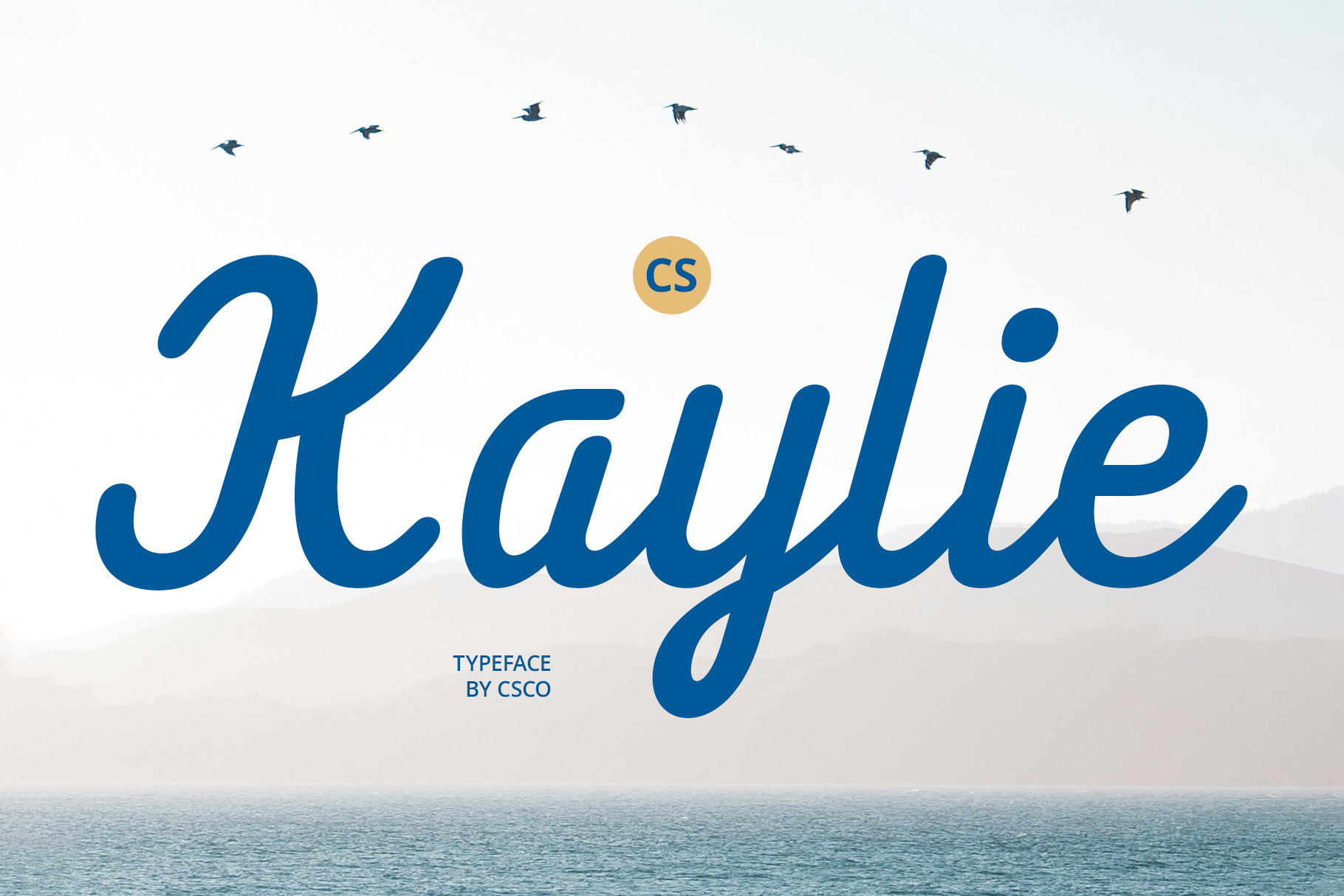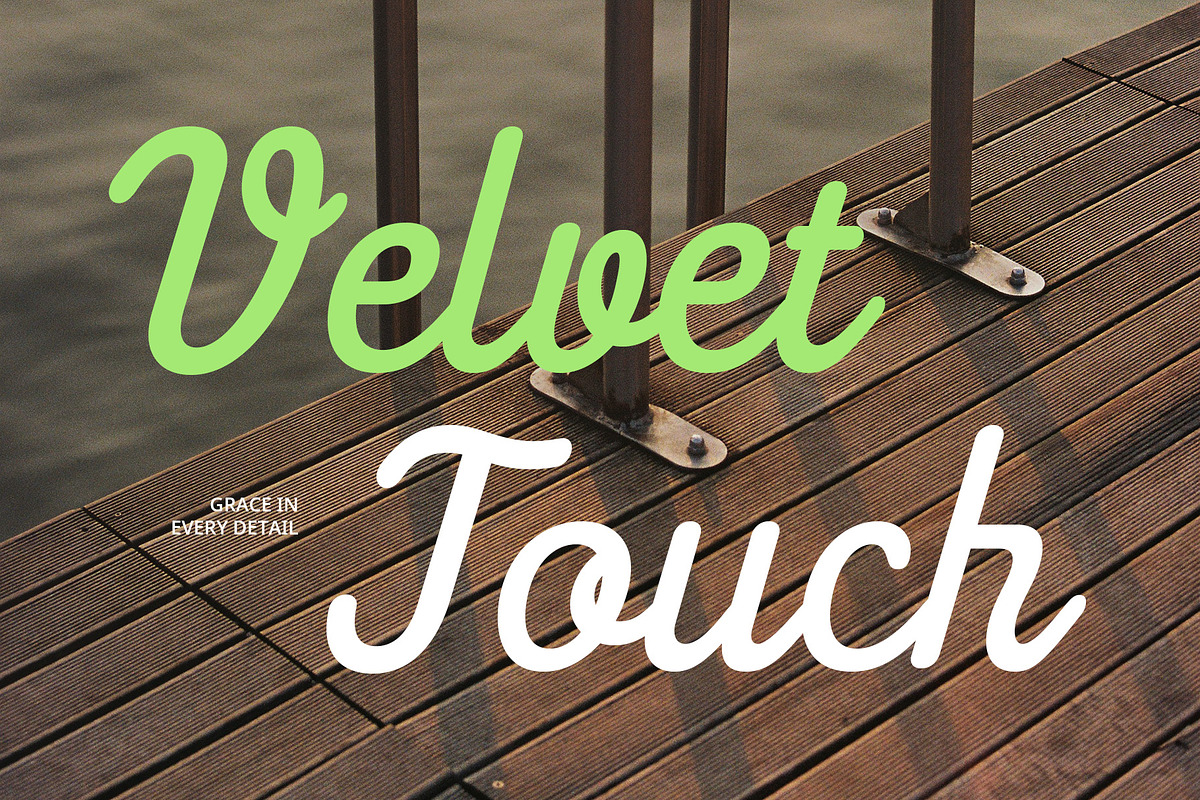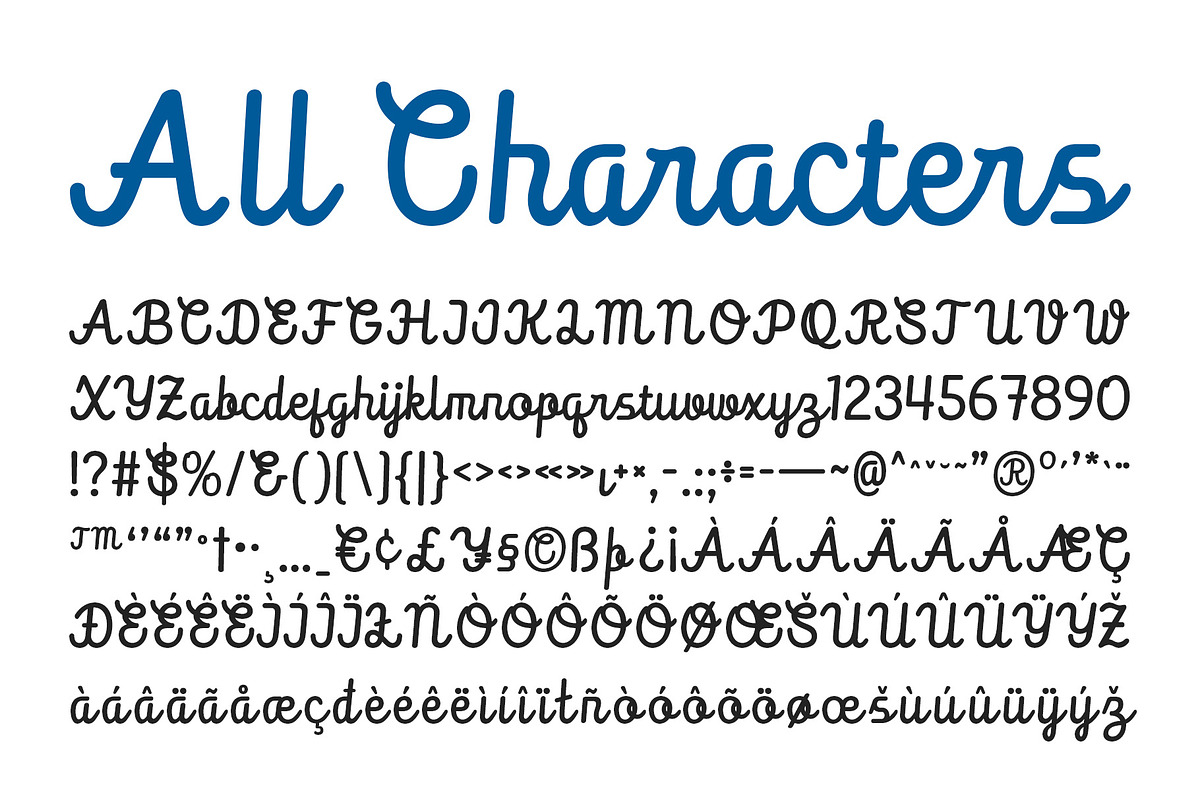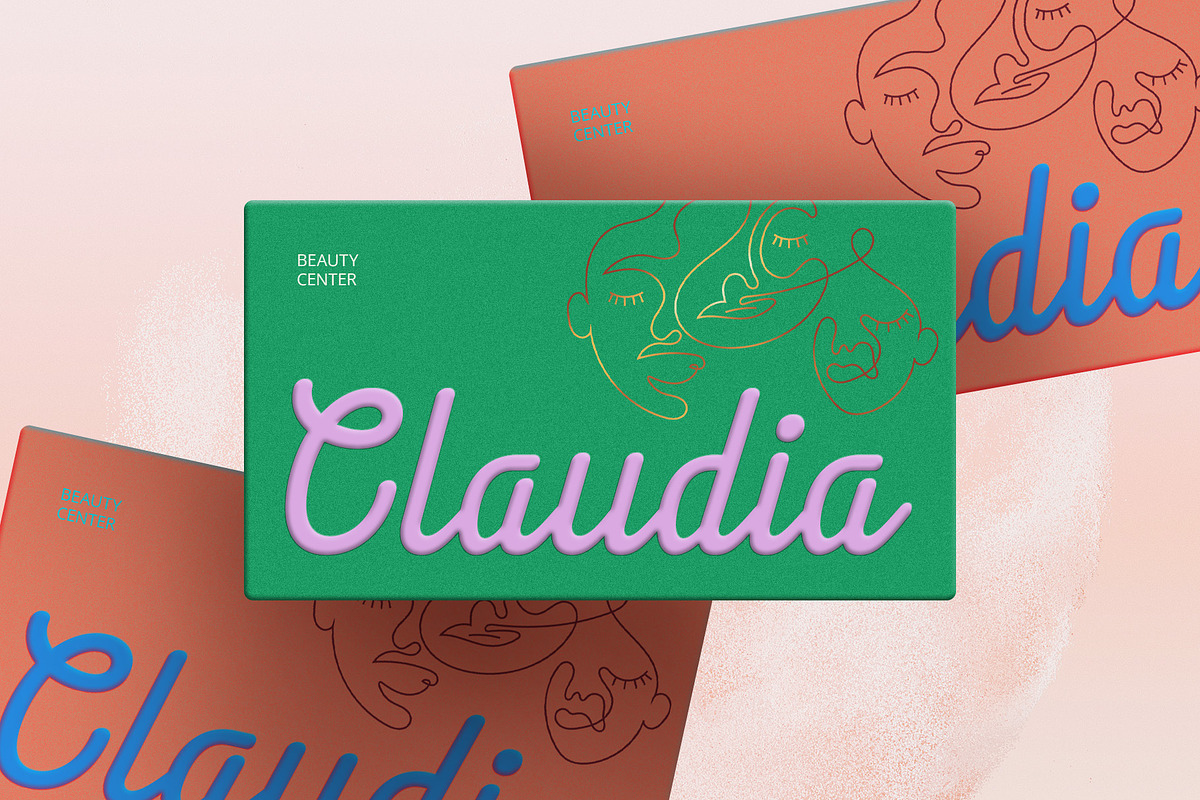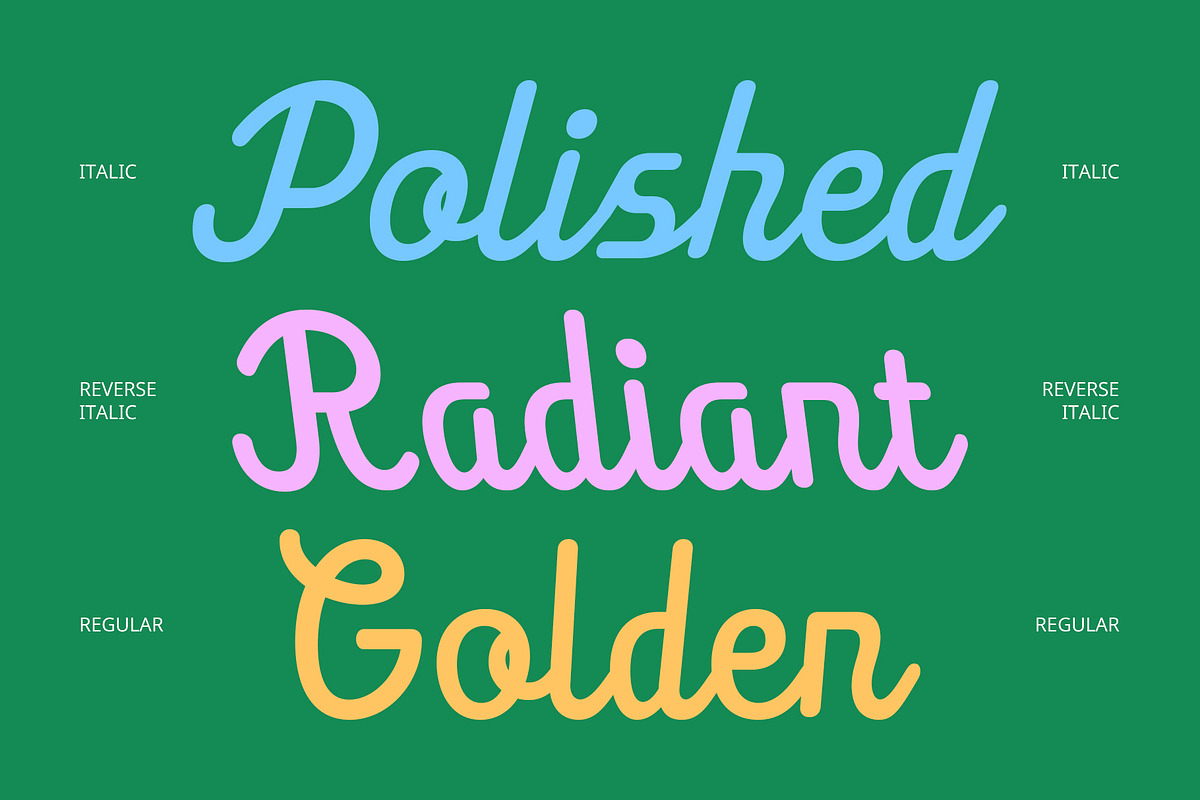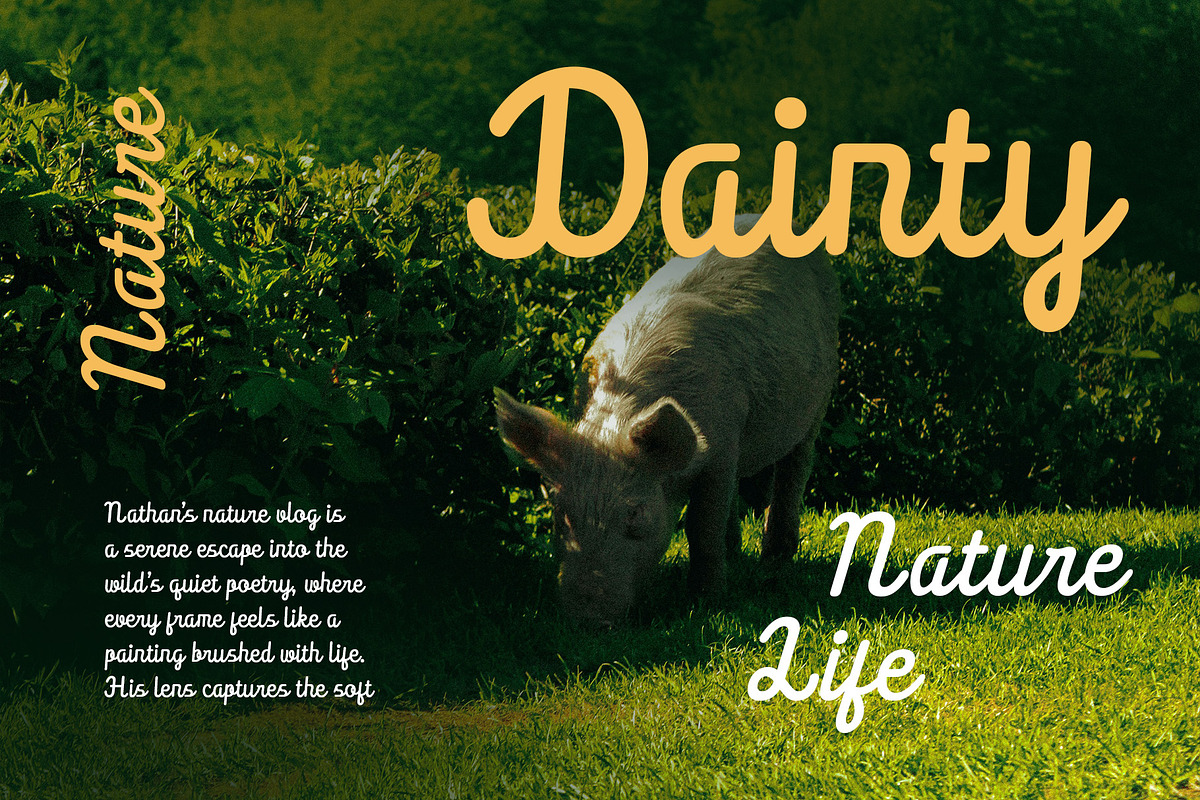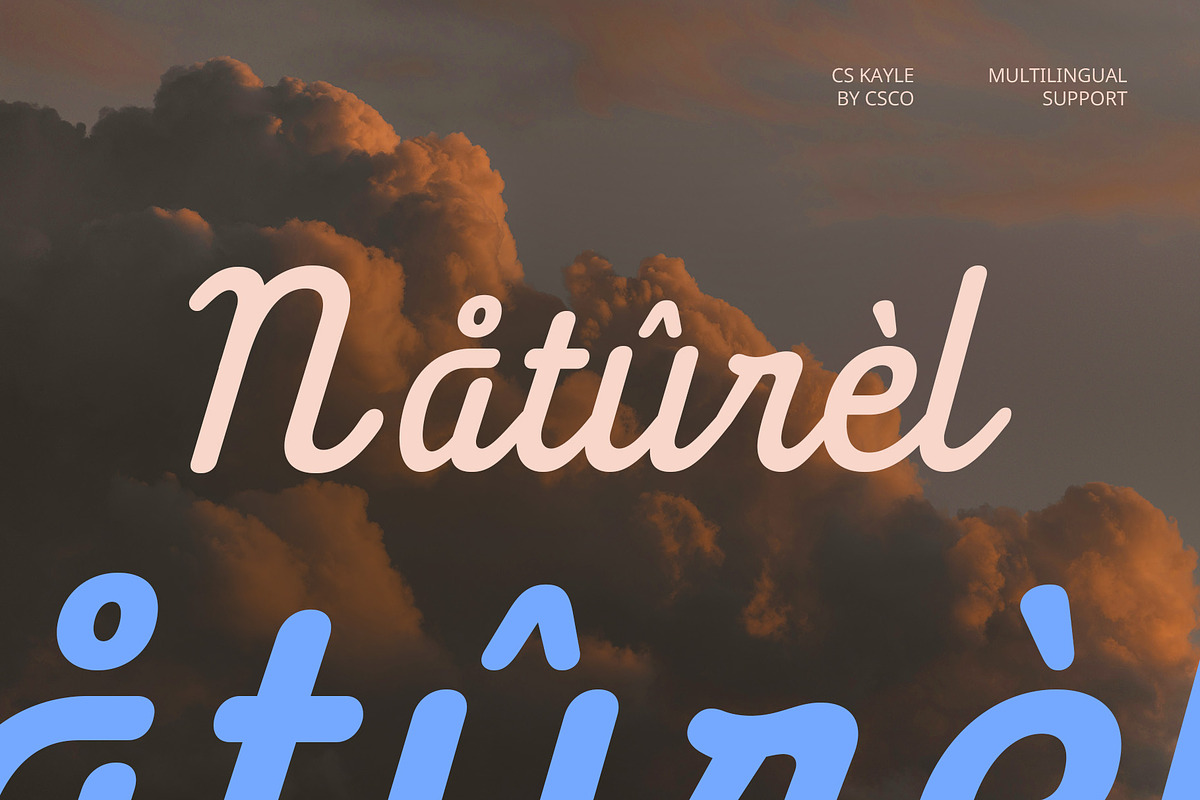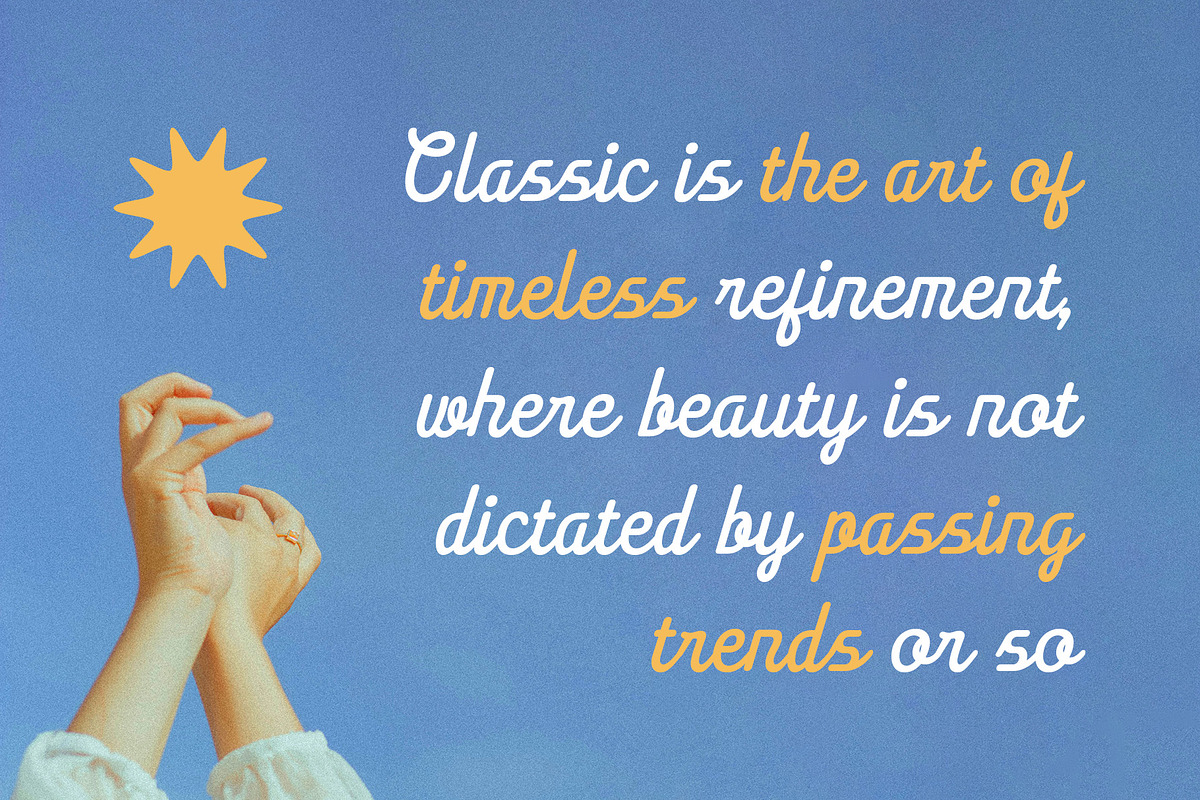
CS Kaylie – Script Font
CS Kaylie – Elegant Handwritten Script Font
Refined, Romantic, and Full of Grace CS Kaylie is a modern script font that brings the warmth of handwriting into elegant, visual harmony. With its natural, flowing strokes and smooth curves, it captures the essence of beauty, softness, and femininity, creating an aesthetic that feels both personal and polished. Each letter is thoughtfully crafted to reflect graceful movement and emotional expression.
A Perfect Balance of Elegance and Personality This font combines the refined structure of modern calligraphy with a personal handwritten touch, making it ideal for projects that demand a delicate and sophisticated tone. Its soft lines and well-balanced rhythm add a romantic, yet contemporary charm—suitable for a wide range of uses from branding to editorial.
Designed for Emotional and Visual Appeal CS Kaylie enhances every design it touches with its elegant, heartfelt impression. Whether you’re creating a beauty logo, wedding suite, or lifestyle content, this font adds a layer of visual intimacy and style that resonates deeply with audiences.
Captivating and Contemporary Script Style While rooted in classic script traditions, CS Kaylie embraces a modern aesthetic that feels fresh and current. It’s designed for creatives who value authenticity, warmth, and visual charm. If your project seeks to express personality with grace and leave a lasting impression, CS Kaylie is the ideal choice to bring your vision to life.